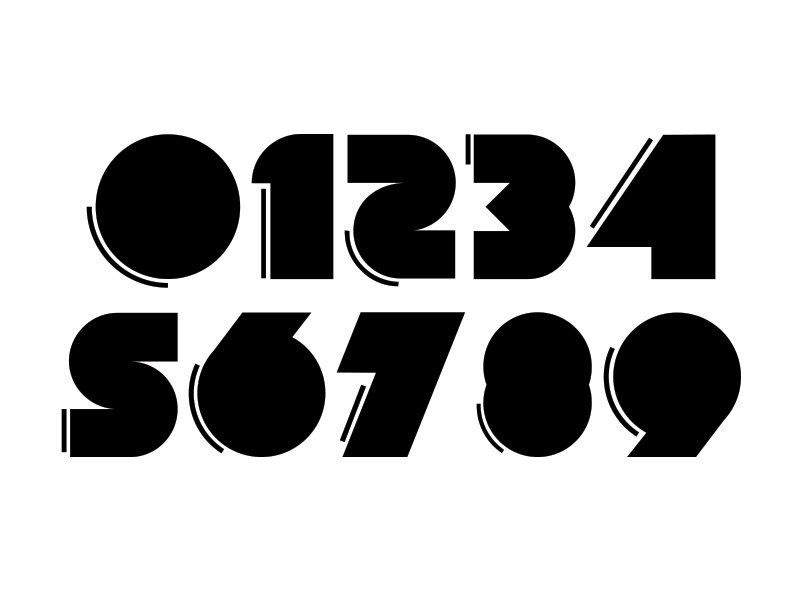
Hello everyone, we are really proud to present this new fresh font to you guys and we hope you make awesome stuff with it! Alva is a very nice minimalist geometric font for posters and headlines, this font have two super cool styles that you can easily mix it between uppercase and lowercase. Another great font designed by Marcelo Reis Melo and it is exclusive for Free Goodies for Designers!